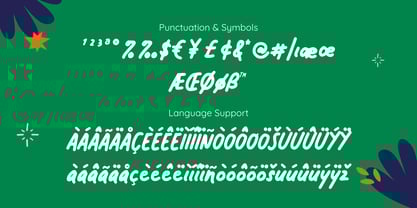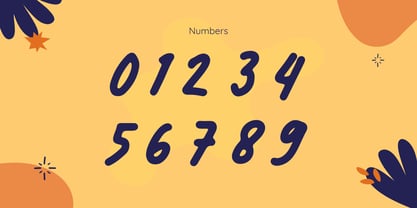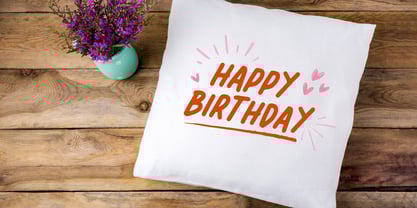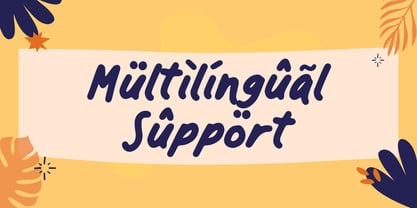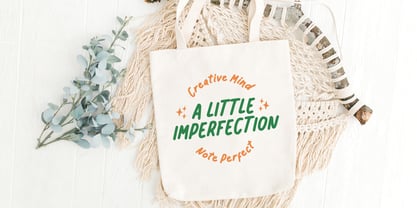
Note Perfect
by Sensatype Studio
The Note Perfect Font Family was designed by Zamroni Hamzah and published by Sensatype Studio. Note Perfect contains 1 styles. More about this family
Note Perfect is a Fun Handwritten Font that's perfect for Headline, Thumbnail or Merchandise. This font specially crafted for your design projects such as banner, poster, flyer, website design, product packaging, merchandise, pillow print and so many more with easy to use but standing out results are so amazing.
Enjoy to Design any your needs with standing out, unique, and authentic feels.